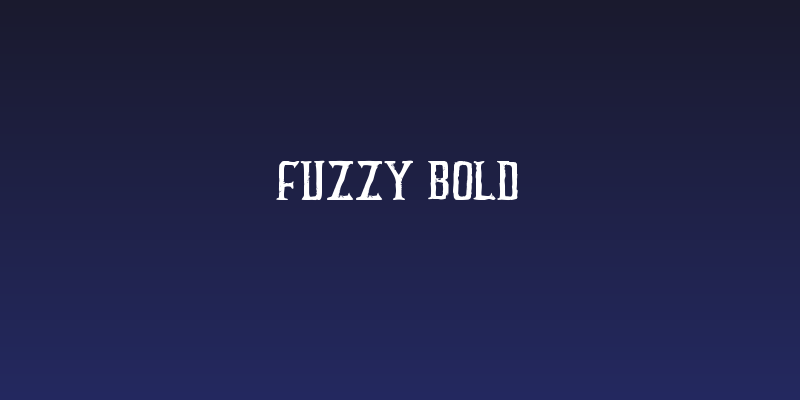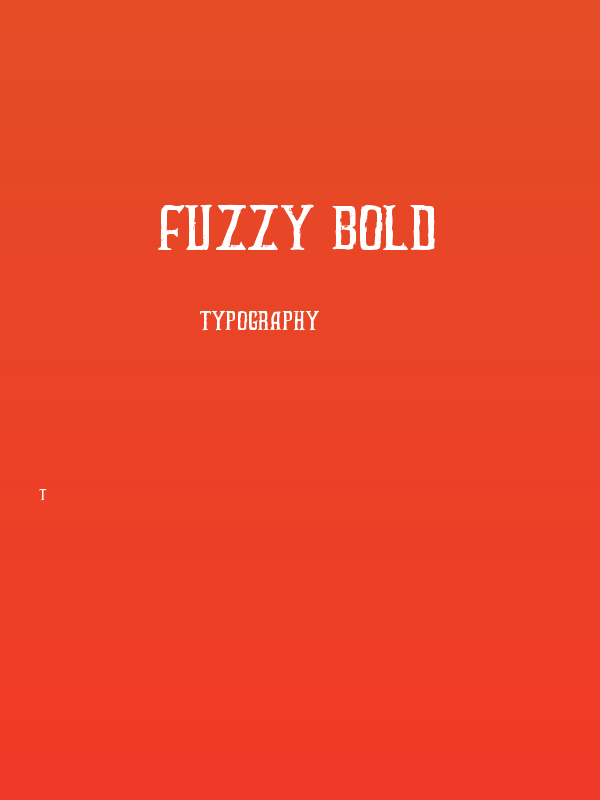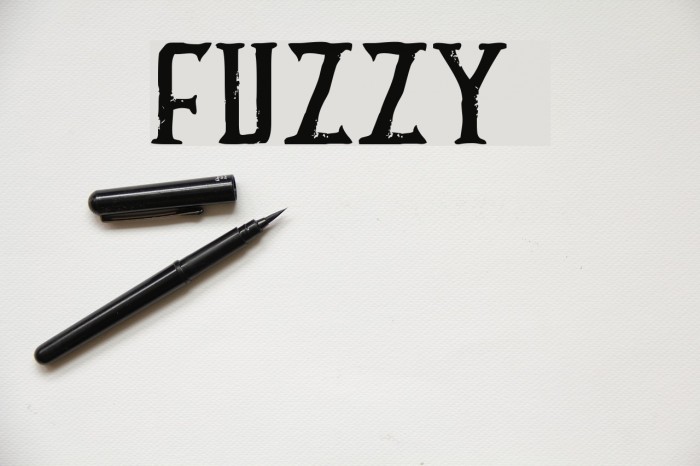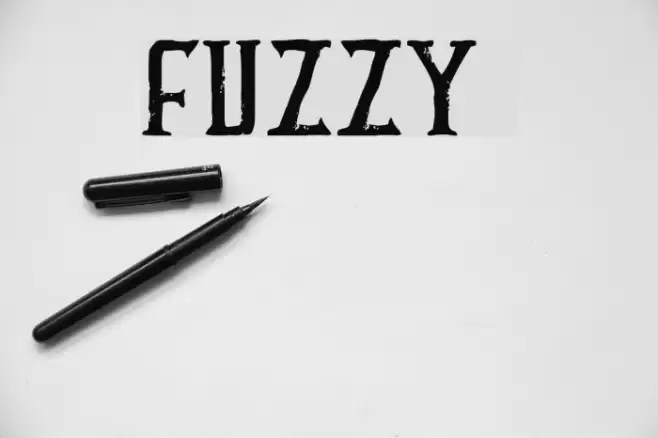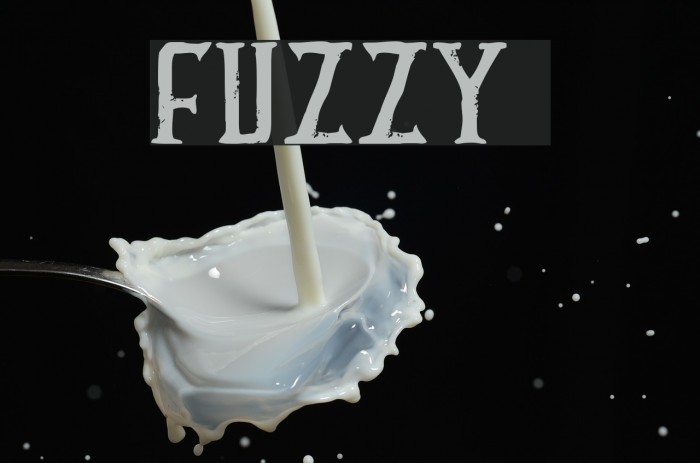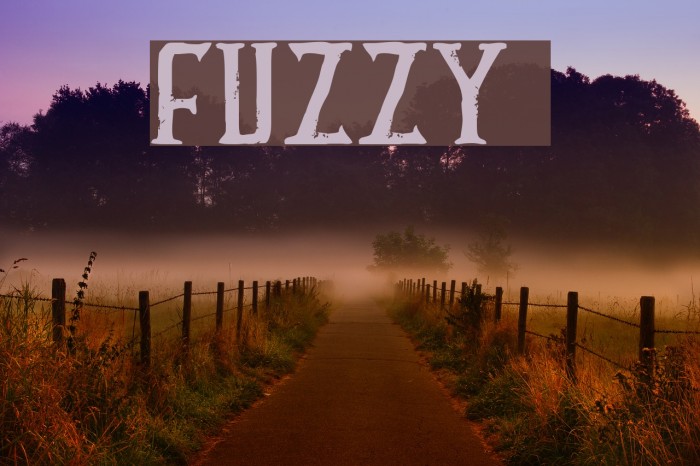
FUZZY bold Font
FUZZY bold Description
This font features a bold and rugged design, characterized by its distressed and textured appearance. The uppercase letters exhibit a strong presence with slightly uneven edges, giving it a hand-crafted feel. The strokes are thick and substantial, contributing to its boldness, while the irregularities in the letterforms add a unique, vintage charm. This font is reminiscent of old western or vintage signage, making it ideal for projects that require a touch of nostalgia or a rustic aesthetic. The overall style is both eye-catching and distinctive, suitable for making a strong visual impact.
| Overall Style | Vintage |
| Proposed Projects | Ideal for vintage posters, rustic branding, western-themed events, or any project needing a bold, nostalgic touch. |